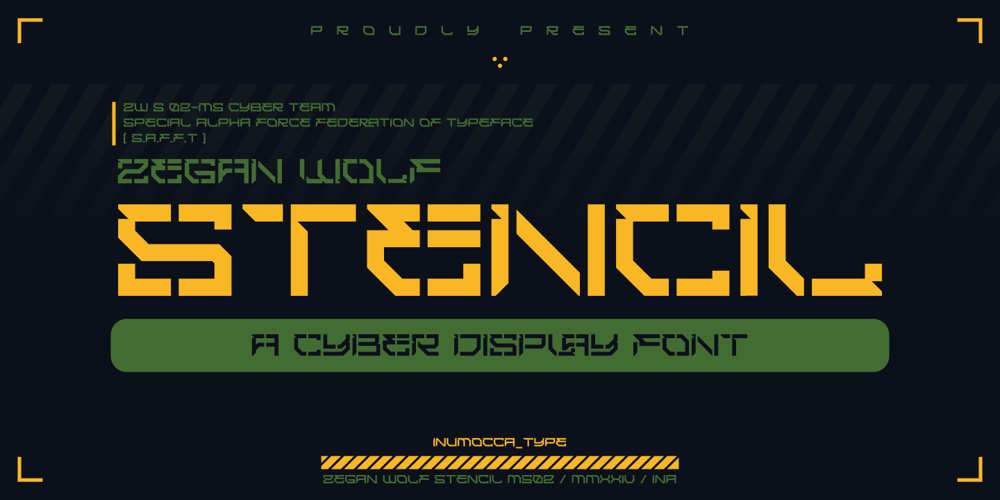
Zegan Wolf Stencil Font Family was designed by Inu Mocca and published by Inumocca. Zegan Wolf Stencil contains 1 styles and family package options. Zegan Wolf STENCIL a Cyber Display FontInspiration by Game Poster, Military design, Rebel, Modern Technology, Synthwave, Sci-fi Movie Poster, science and Space Theme.Really great font to covering your Project, like poster Game, mecha poster, logotype, Website Interface, Magazine, Branding, Logos, and more your project design.inumocca type